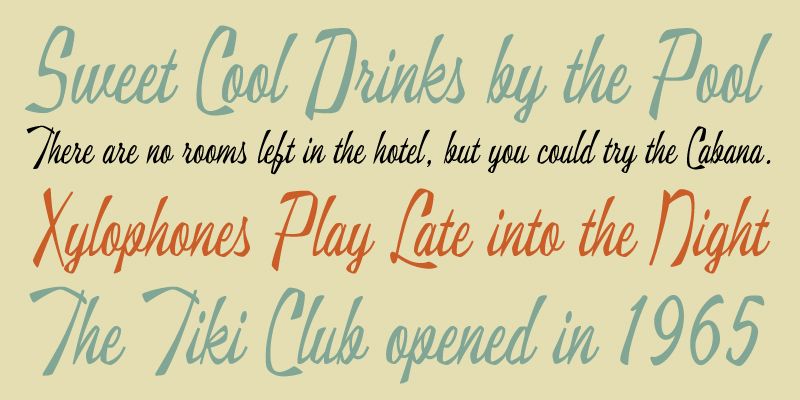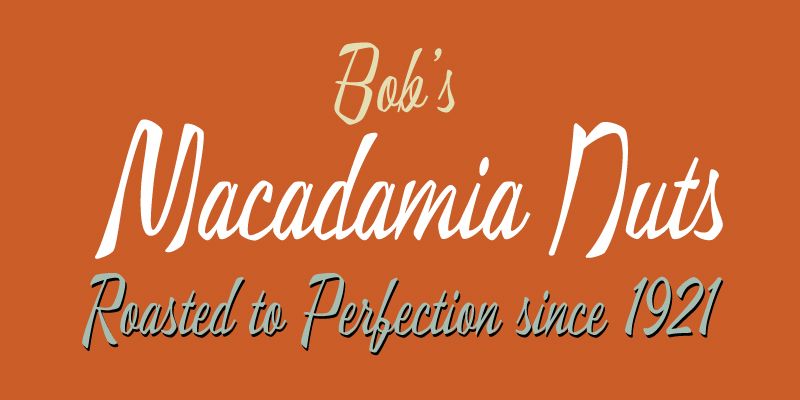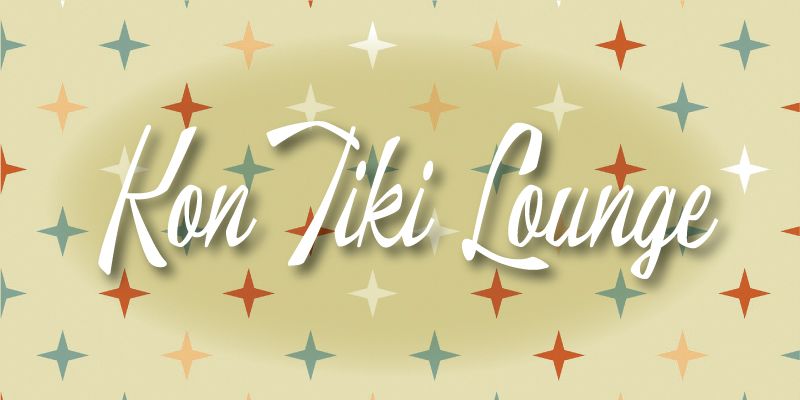
Kon Tiki Lounge is an angular and rustic script font, lending it a more primitive feel. It also has a wide range of applications where a less formal script face is needed.
Jukebox
Jukebox is the brainchild of Jason Walcott, longtime type designer. Jason designed his first typeface called “Holiday Times” in the fall of 2000, and that started a long and wonderful journey that lead to the Jukebox of today.
After designing five or six more fonts, Jason started selling his typefaces on MyFonts.com in summer of 2001. At that time, his foundry went under the name of “JAW Fonts”. Several of his type designs quickly became popular on MyFonts.com and the sales grew through late 2002.
In early March of 2003, Walcott received a phone call from the then up-and-coming Veer Inc. Veer was interested in carrying his font library which then consisted of about 50 faces. The deal with Veer blossomed into a whole new venture and JAW Fonts was closed down, retooled and relaunched as Jukebox in June of 2003. The exclusive product of Veer from 2003 to 2015, Jukebox became one of the industry standards in type libraries available. Jukebox fonts have been used on countless products and designs, films, books, television productions and more, by companies such as Disney, HGTV, The Food Network, Disney Theme Parks, Hershey’s, VistaPrint and many others. In 2011 Jason’s Eloquent font family was awarded a spot in the “Best of Typeface Design” in Communications Arts Magazine’s Typography Annual.
On March 31st of 2016, Veer closed its doors forever and curation of the Jukebox library returned to Jason, who is committed to making sure Jukebox will continue to provide the design world with high-quality, professional type.